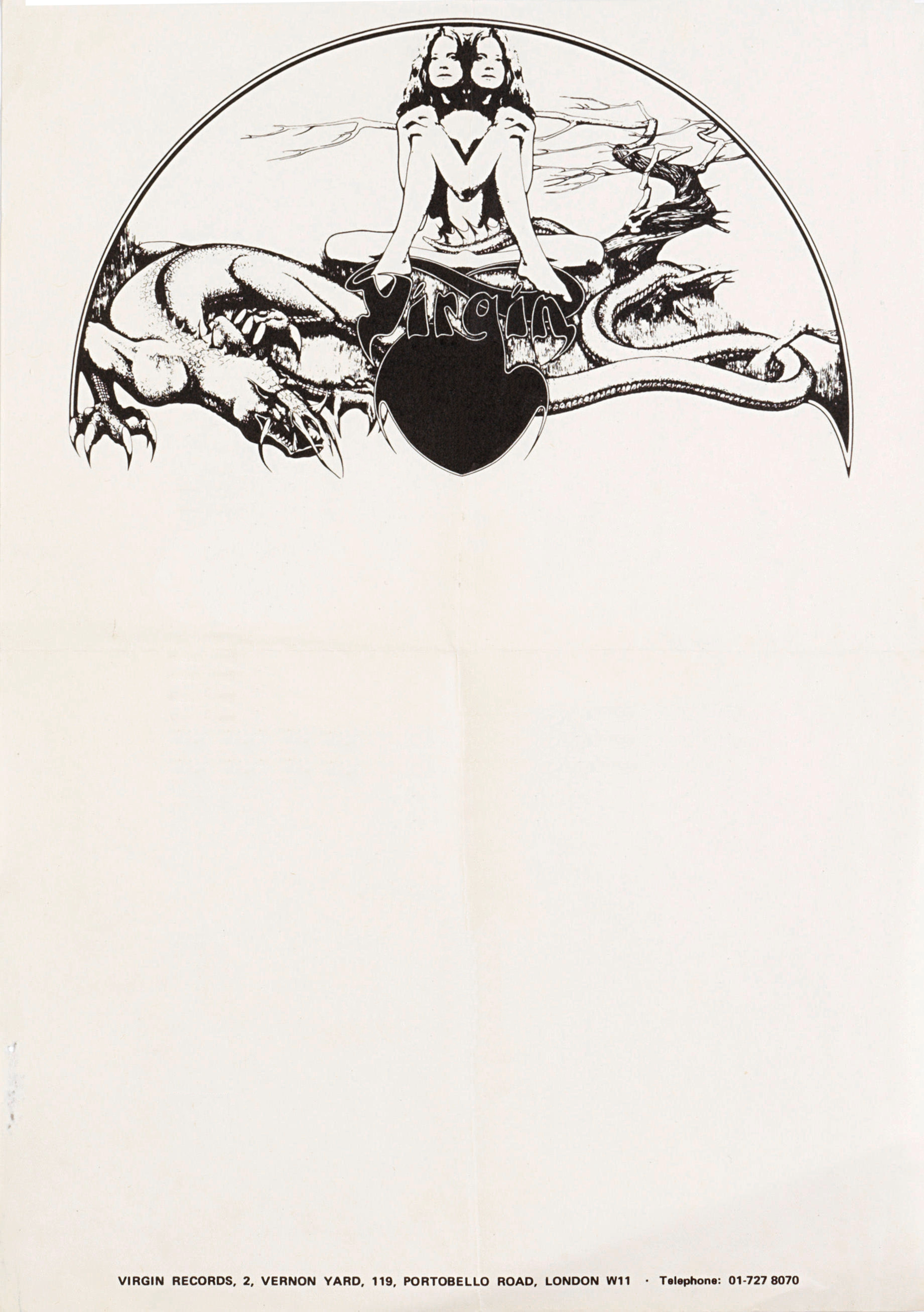
Founded in 1972 by Richard Branson, Virgin Records quickly became one of the most influential record labels of its time, launching the careers of artists like Mike Oldfield, the Sex Pistols, and Culture Club. This early sheet of stationery features the original logo (in colour here), designed by British illustrator Roger Dean—best known for his album covers for bands like Yes. It remained in use until 1978, when it was tragically replaced by the now-iconic red Virgin logo.